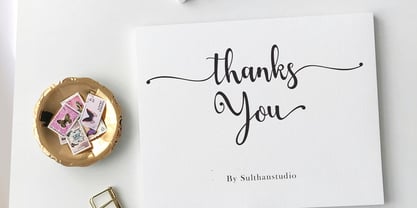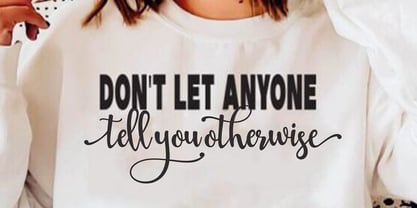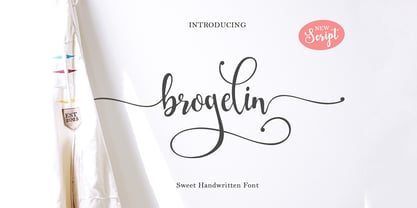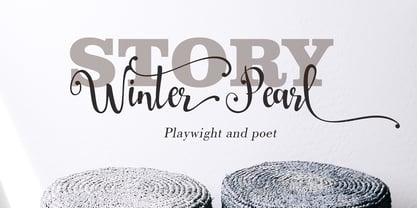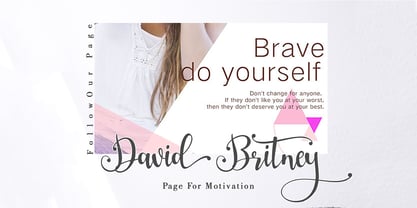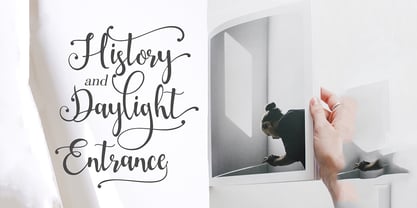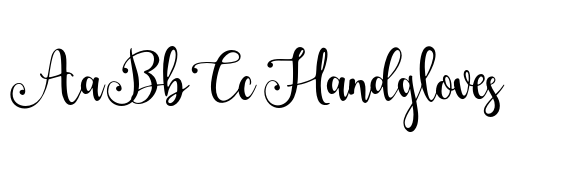
Brogelin
by Sulthan Studio
The Brogelin Font Family was designed by Nasrullah and published by Sulthan Studio. Brogelin contains 1 styles. More about this family
Experience the distinct style of Brogelin font, a distinctive handwritten typeface that effortlessly combines creativity and daring uniqueness. With each character elegantly punctuated by captivating swash curves, the Brogelin font breathes life into any design while still retaining a sense of sophisticated charm. Add a touch of artisanal flare to your graphics with its unconventional contours and daringly bold spirit. This unique font effortlessly connects the contemporary with the timeless, offering designs that resonate broadly, and seducing the eye with its graceful swashes. Brogelin font is more than just a typeface, it’s an artistic statement.
Designers: Nasrullah
Foundry: Sulthan Studio